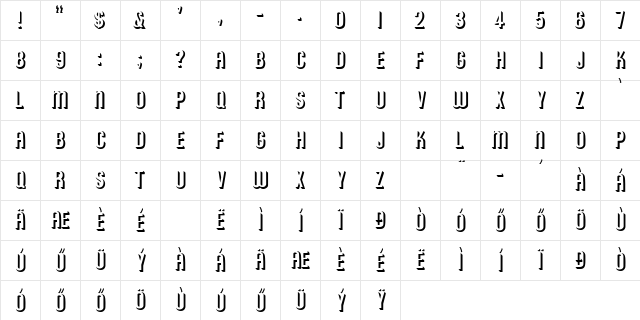
Complete H_RoundedRelief Regular glyph index. Displaying only characters natively supported by H_RoundedRelief Regular font.
H_RoundedRelief softens its letterforms with rounded terminals, giving it an approachable, friendly quality that works well in consumer-facing and digital contexts.
Font Pairing: Pairs well with a rounded or humanist sans for body copy, maintaining the friendly tone without relying on H_RoundedRelief to carry extended reading.
Pro Tip: Use H_RoundedRelief for UI elements, app interfaces, and anywhere a friendly, approachable tone needs to be maintained without sacrificing clarity.